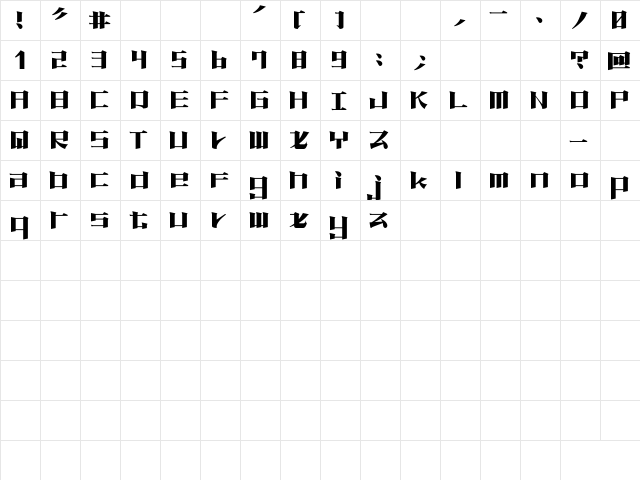
0064_011 Regular
Design Context for 0064_011 Typeface
0064_011 is a composed and adaptable typeface that performs quietly and consistently across a wide range of design contexts.